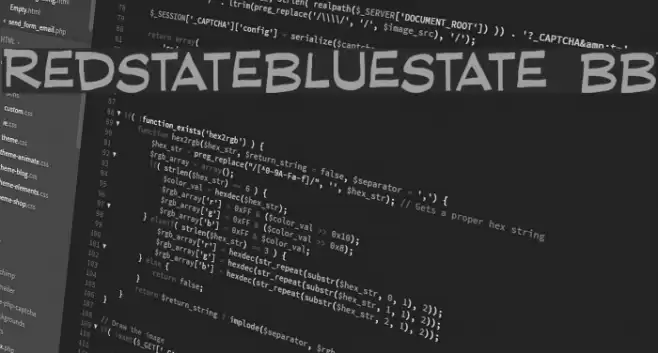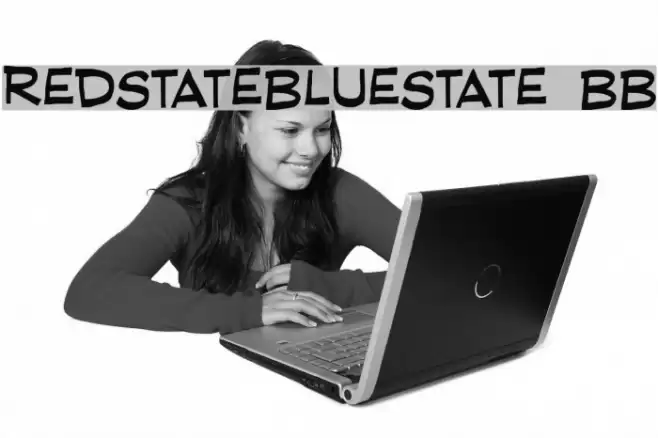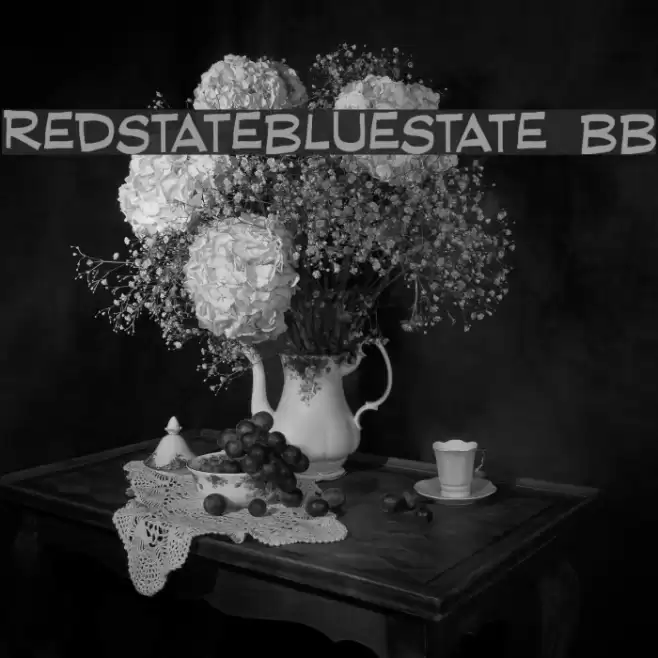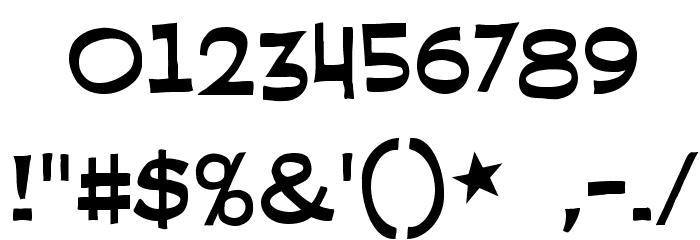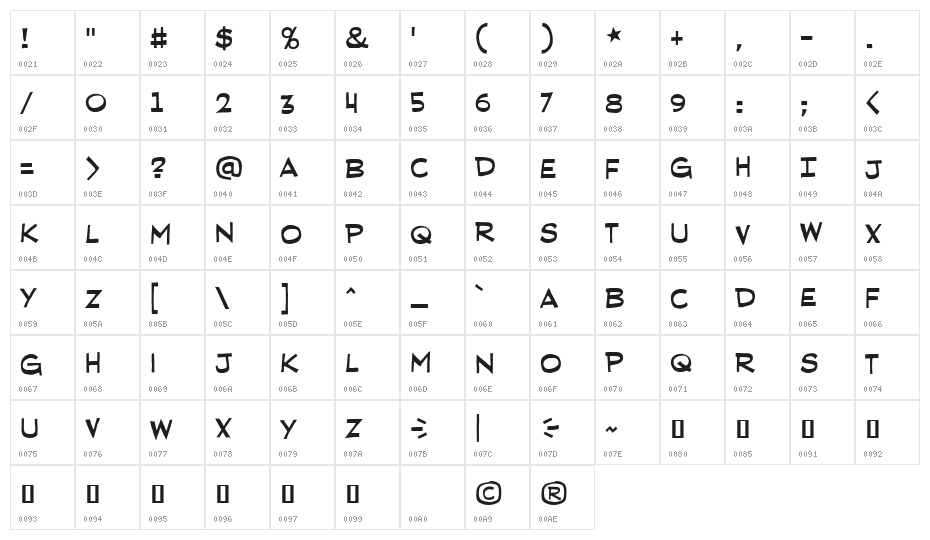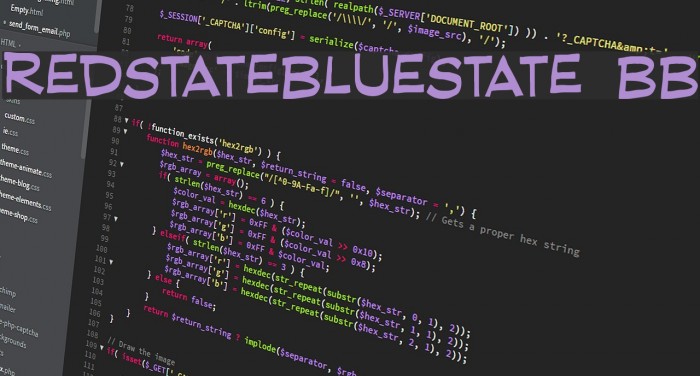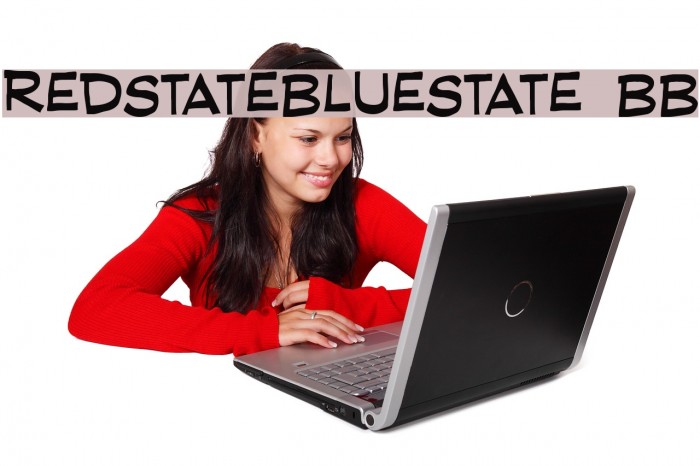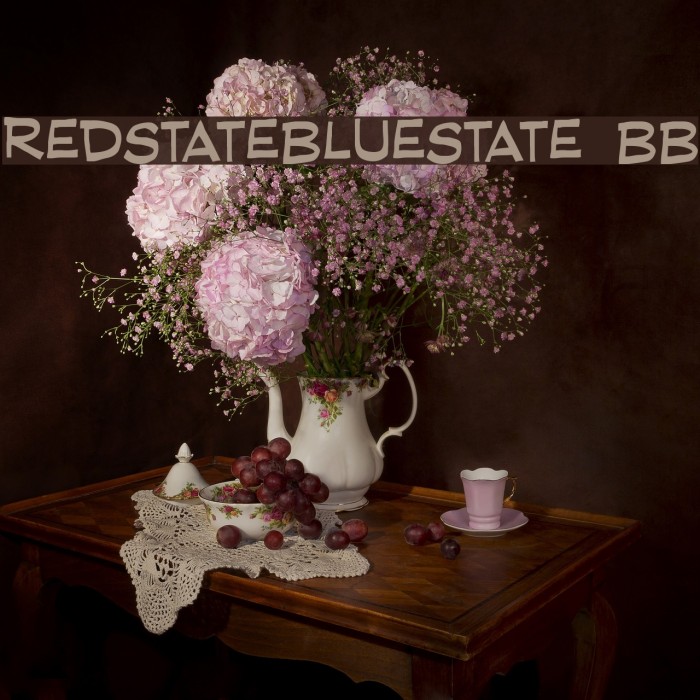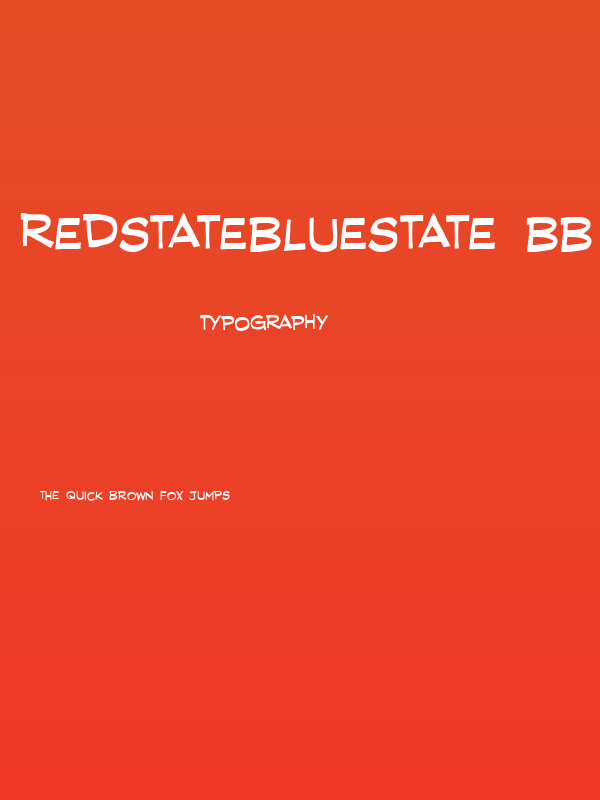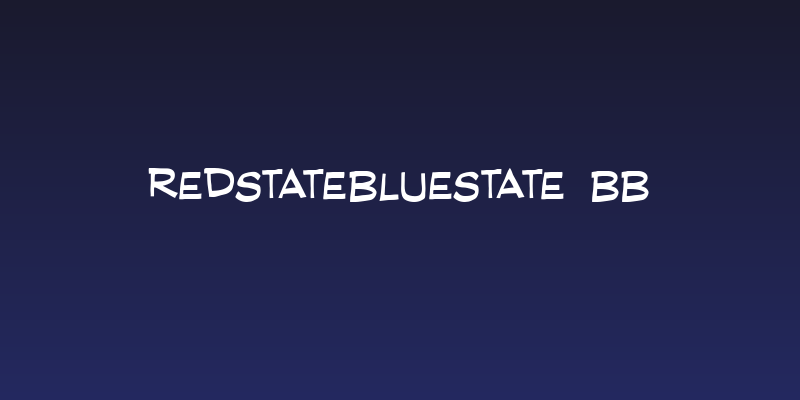
RedStateBlueState BB Font
RedStateBlueState BB Description
This font features a playful and dynamic style with a hand-drawn appearance. The letters are slightly irregular, giving it a casual and informal feel. The strokes are bold and consistent, with rounded edges that add to its approachable character. The uppercase and lowercase letters maintain a uniform height, contributing to a cohesive look. The numerals and special characters follow the same playful design, ensuring versatility across various uses. Its unique style makes it suitable for projects that require a touch of whimsy and creativity.
A playful, hand-drawn font with bold, rounded strokes and a casual feel from Cartoon fonts.
- Proposed Projects: Ideal for children's books, comic strips, playful branding, and creative posters.
- Overall Style: Playful